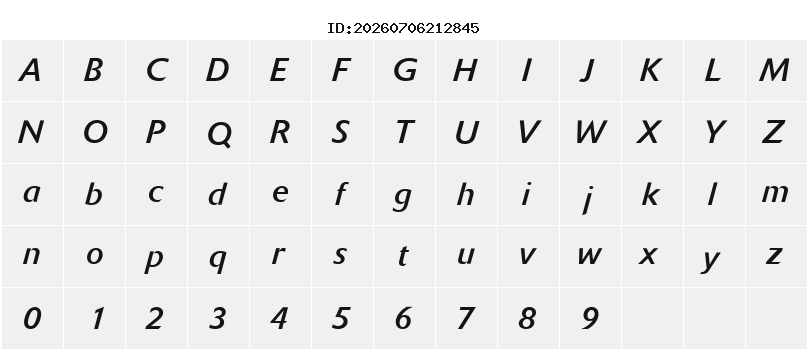
• Font Name: Delta BQ
• Full Font Name: Delta Jaeger (R) Book Italic
• PostScript Name: DeltaBQ-BookItalic
About Delta BQ.ttf
Delta BQ.ttf is a modern, elegant sans-serif font designed for ultimate readability and visual harmony. Perfect for branding, headlines, web design, and print materials.